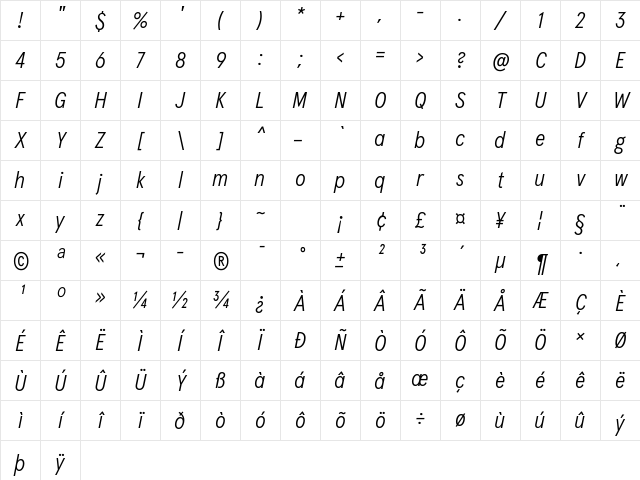
Apercu Condensed Pro Light Italic
Foundry: Colophon Foundry
Designer: Colophon Foundry
Design Context for Apercu Condensed Pro
Apercu Condensed Pro is a composed and adaptable typeface that performs quietly and consistently across a wide range of design contexts. The slanted form adds forward momentum and visual energy. Its slender proportions lend an understated elegance to any composition. Its narrow stance lets it pack a punch even in space-constrained designs.
Pro Tip: Use Apercu Condensed Pro for emphasis, pull quotes, and subheadings where its slanted energy can add rhythm to the layout.
Who designed the Apercu Condensed Pro Light Italic font?